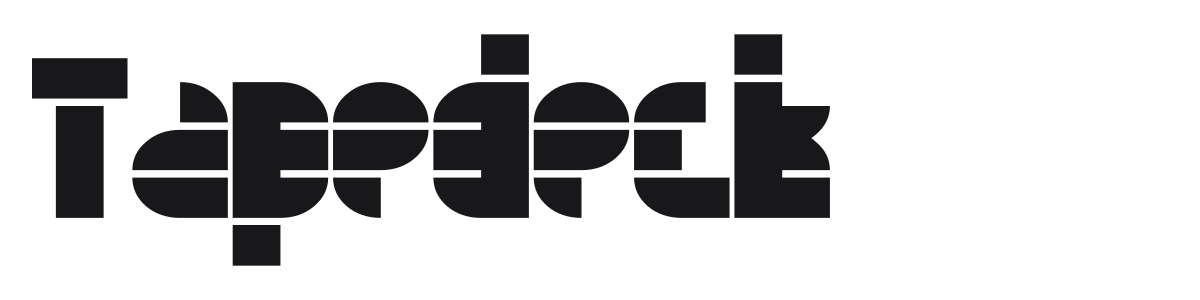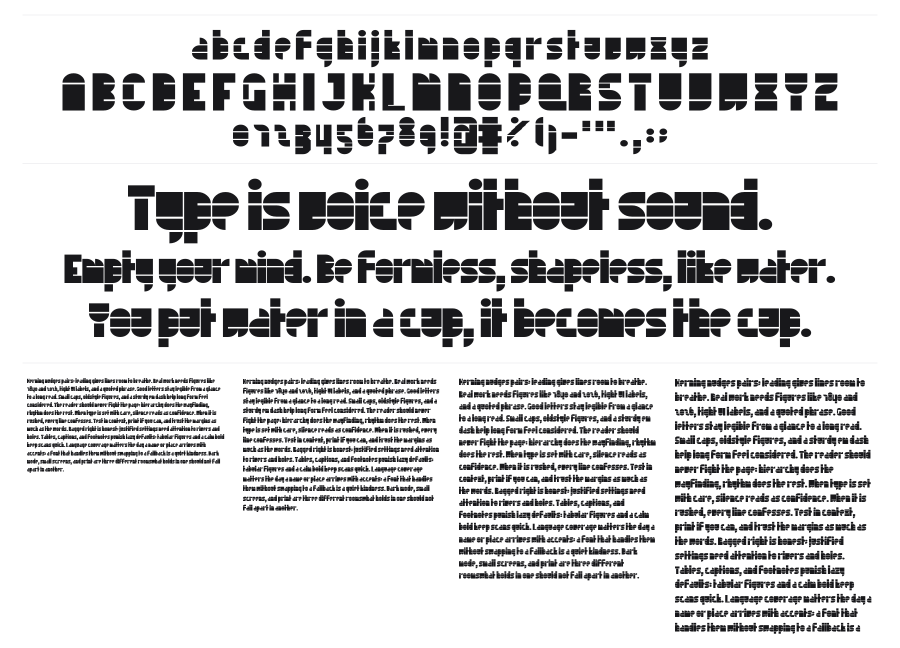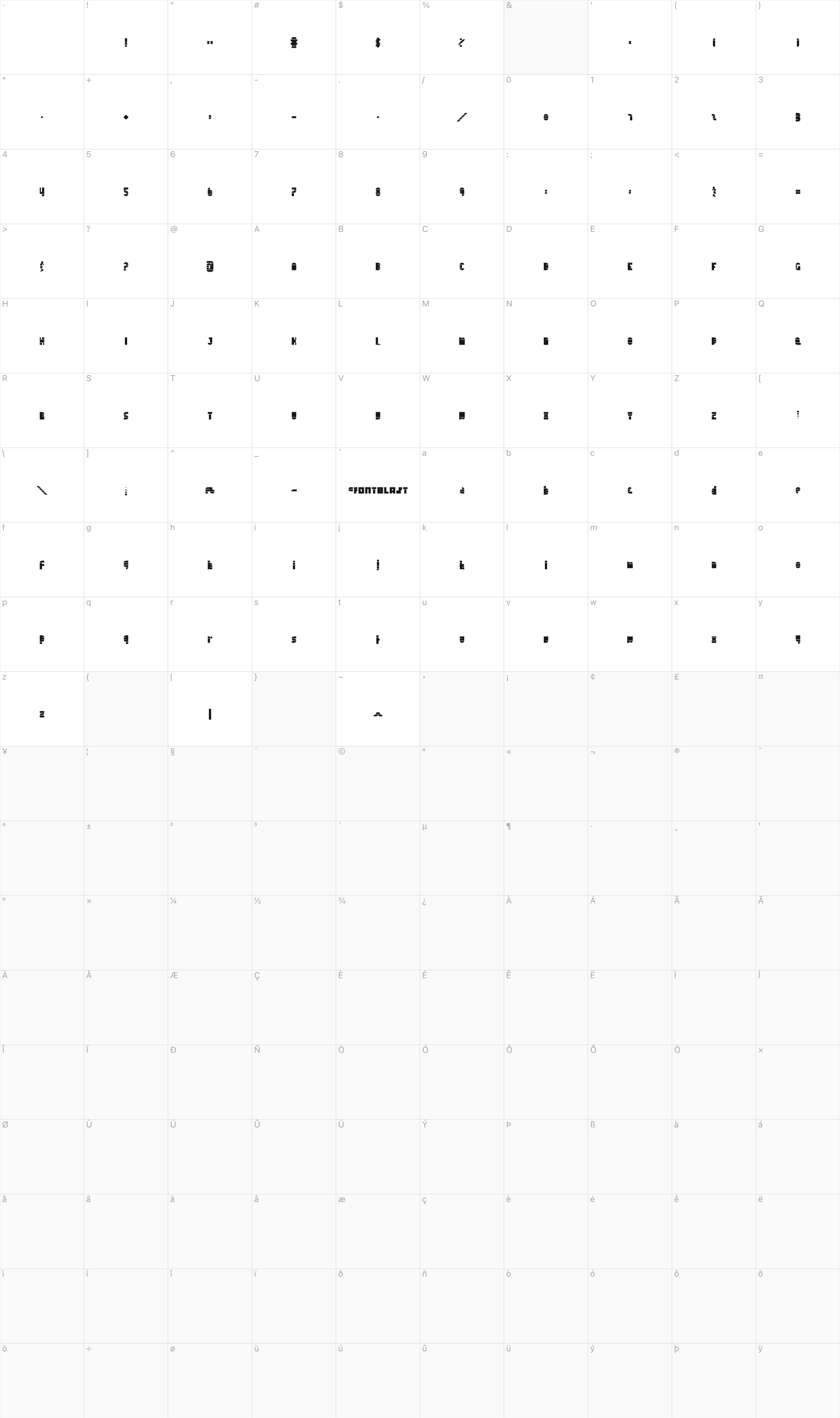
Tapedeck
Tapedeck is a bold geometric display font assembled from a modular vocabulary of squares and circles, giving every character a chunky, puzzle-piece quality. The construction recalls 1970s pop graphics and the visual language of analog audio equipment. It works best big, where the modular geometry reads as intentional system rather than novelty.